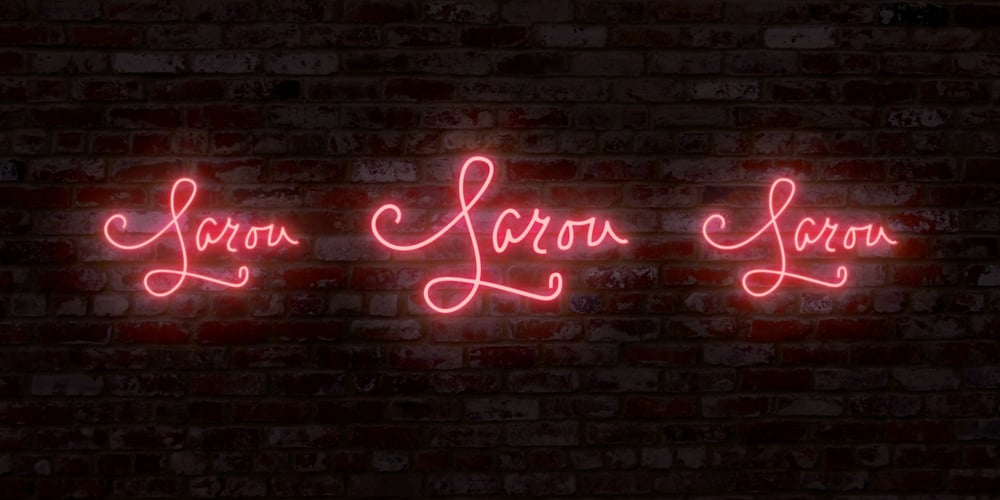
Larou
Larou font
Larou Font Family was designed by Emily Conners and published by Emily Lime. Larou contains 1 styles and family package options. Larou was created to be original and fun, imperfect and quirky. Letters are not uniformly sized… they are created such that the final product is unexpected and interesting. Larou includes alternates and ligatures – to assist with readability and letter flow. Try it, you will fall in love!